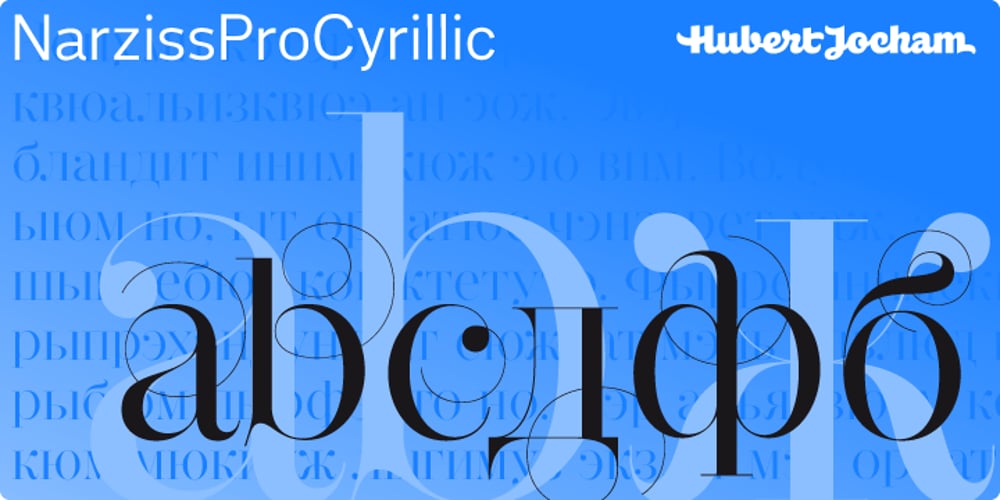
Narziss Pro Cyrillic
Narziss Pro Cyrillic font
Narziss Pro Cyrillic Font Family was designed by Hubert Jocham and published by Hubert Jocham Type. Narziss Pro Cyrillic contains 21 styles and family package options. Since Mommie, I gradually got more into swirly ornaments. The massive contrast in the neoclassic style is perfect for thin swirly extentions to the characters. Even in an upright typeface. Narziss is very elegant in big headlinesizes. Use it only very big. What was the inspiration for designing the font? spencerian calligraphies and neoclassic contrast What are its main characteristics and features? Narziss is very elegant in very big sizes. The Regular version is without any ornament. The Drops version has some character like the e and the k that are more unique. The Swirls version has got carefully added swirls, that come out of the basic stroke and flow into other characters. Usage recommendations: Big headlines in magazines, brochures and invitations